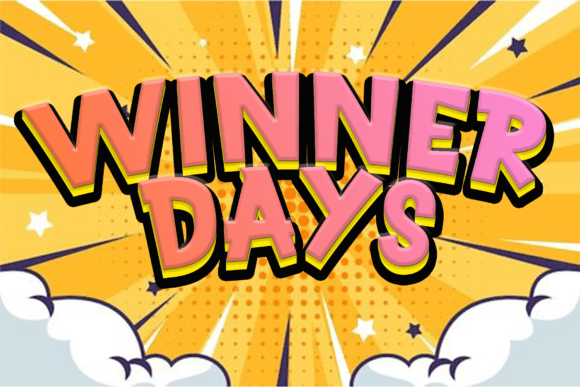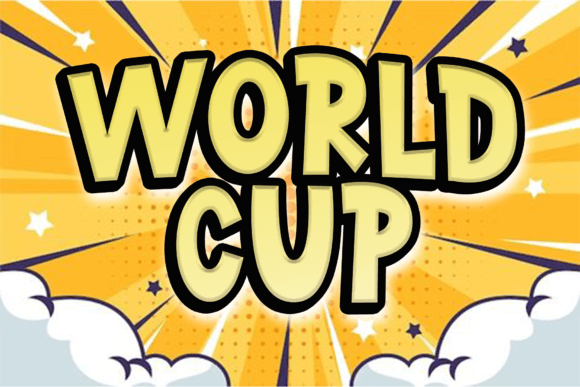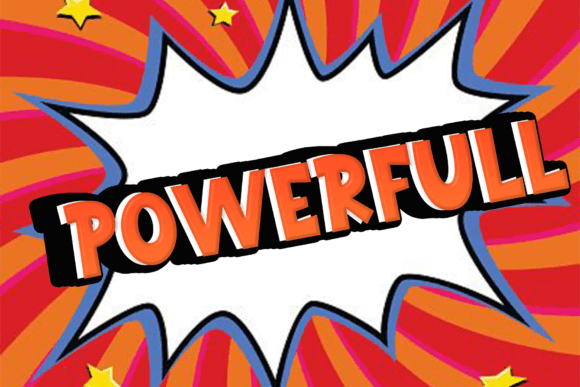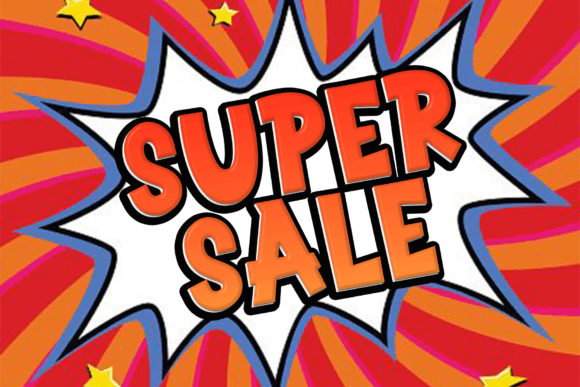
Introducing Champions Font: The Perfect Choice for Cheerful Designs
Are you looking for a font that can add a touch of fun and quirkiness to your designs? Look no further than Champions Font! This display font is perfect for creating cheerful and playful designs that are sure to capture the attention of your audience. In this article, we’ll take a closer look at Champions Font and explore its features, benefits, and uses.
What is Champions Font?
Champions Font is a fun and quirky display font that is perfect for designing cheerful and playful content. Its unique and lively style makes it an ideal choice for children’s themed designs, such as kids’ party invitations, children’s books, and educational materials. The font is also suitable for a wide range of other design projects, including posters, flyers, and social media graphics.
Key Features of Champions Font
So, what makes Champions Font so special? Here are some of its key features:
- PUA Encoded: Champions Font is PUA (Private Use Area) encoded, which means that you can access all of its amazing glyphs and ligatures with ease. This makes it easy to use the font in your designs and to create unique and creative text effects.
- Fun and Quirky Style: Champions Font has a fun and quirky style that is perfect for creating cheerful and playful designs. Its unique and lively style is sure to capture the attention of your audience and add a touch of personality to your designs.
- Children’s Themed Designs: Champions Font is particularly suitable for children’s themed designs, such as kids’ party invitations, children’s books, and educational materials. Its playful and fun style is sure to appeal to kids and add a touch of excitement to your designs.
- Bright Colors: Champions Font looks great when combined with bright colors. Its fun and quirky style is perfectly complemented by bold and vibrant colors, making it an ideal choice for designs that require a pop of color.
Benefits of Using Champions Font
So, why should you choose Champions Font for your designs? Here are some of the benefits of using this font:
- Easy to Use: Champions Font is easy to use and can be accessed with ease. Its PUA encoding makes it simple to use the font’s glyphs and ligatures, even if you’re not a professional designer.
- Unique and Creative: Champions Font is a unique and creative font that can add a touch of personality to your designs. Its fun and quirky style is sure to capture the attention of your audience and set your designs apart from the crowd.
- Versatile: Champions Font is a versatile font that can be used for a wide range of design projects. Its fun and quirky style makes it suitable for children’s themed designs, but it can also be used for other projects, such as posters, flyers, and social media graphics.
- High-Quality: Champions Font is a high-quality font that is designed to produce clear and crisp text. Its unique and lively style is sure to add a touch of excitement to your designs and make them stand out.
Uses of Champions Font
So, what can you use Champions Font for? Here are some ideas:
- Children’s Party Invitations: Champions Font is perfect for creating fun and playful children’s party invitations. Its unique and lively style is sure to capture the attention of kids and add a touch of excitement to your invitations.
- Children’s Books: Champions Font is a great choice for children’s books. Its fun and quirky style is sure to appeal to kids and add a touch of personality to your book designs.
- Educational Materials: Champions Font is also suitable for educational materials, such as worksheets, activity sheets, and educational posters. Its playful and fun style is sure to engage kids and make learning more fun.
- Posters and Flyers: Champions Font can also be used for posters and flyers. Its unique and lively style is sure to capture the attention of your audience and add a touch of personality to your designs.
- Social Media Graphics: Champions Font is also perfect for social media graphics. Its fun and quirky style is sure to add a touch of excitement to your social media posts and make them stand out.
In conclusion, Champions Font is a fun and quirky display font that is perfect for creating cheerful and playful designs. Its unique and lively style makes it an ideal choice for children’s themed designs, but it can also be used for a wide range of other design projects. With its PUA encoding, fun and quirky style, and high-quality design, Champions Font is a great choice for designers and crafters who want to add a touch of personality to their designs.